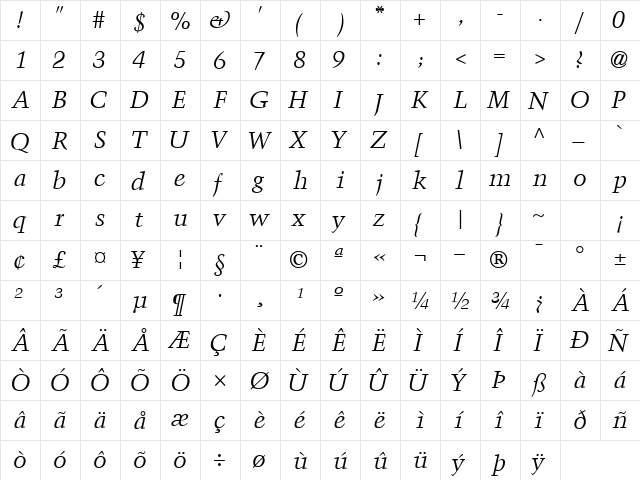
BlackfordSSK Italic
Design Context for BlackfordSSK Typeface
BlackfordSSK is a composed and adaptable typeface that performs quietly and consistently across a wide range of design contexts. The slanted form adds forward momentum and visual energy.
Pro Tip: Use BlackfordSSK for emphasis, pull quotes, and subheadings where its slanted energy can add rhythm to the layout.